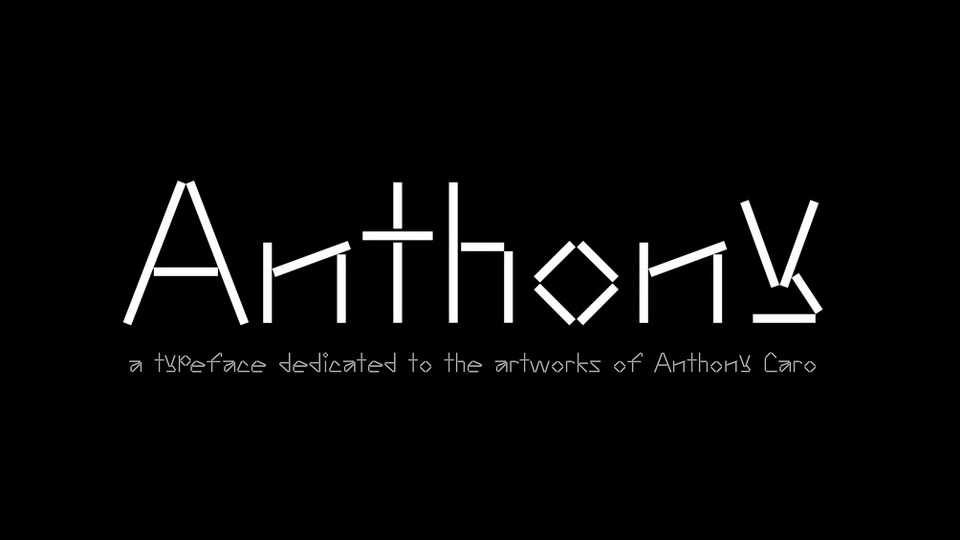
Download Anthony font, a modular geometric display typeface inspired from artworks by Anthony Caro. The form of Anthony typeface comes from his sculptures that are leaning against each other.
Designer: Sun Young Oh